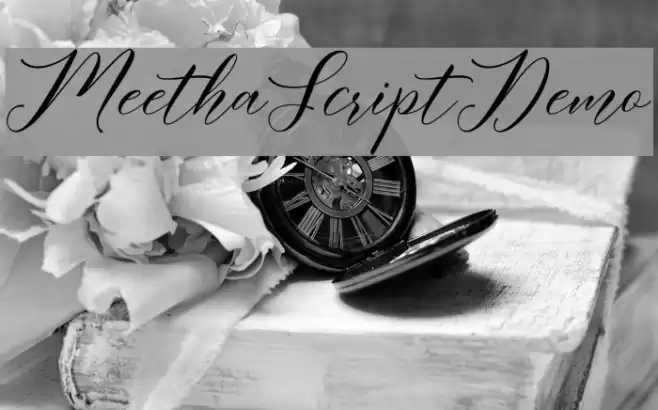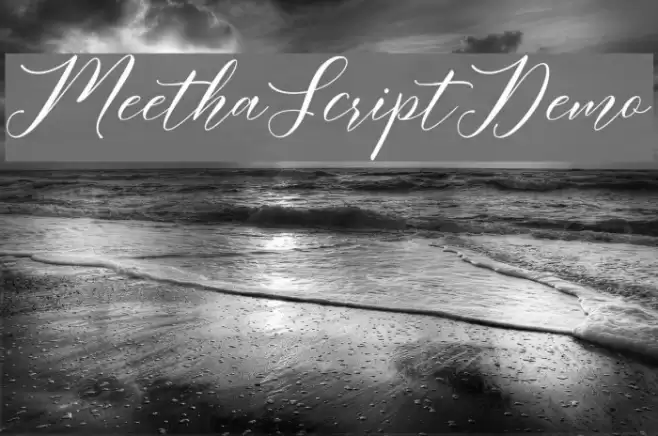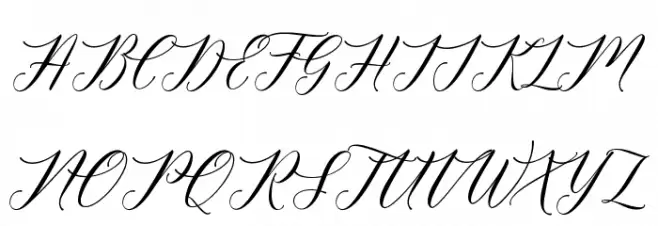
MeethaScriptDemo Font
MeethaScriptDemo Description
This elegant script font features flowing, interconnected letters that exude a sense of sophistication and grace. The uppercase letters are characterized by their tall, slender forms with sweeping curves and flourishes, while the lowercase letters maintain a consistent flow with smooth, rounded shapes. The font's overall appearance is reminiscent of traditional calligraphy, making it ideal for projects that require a touch of elegance and refinement. The consistent stroke width and balanced proportions contribute to its readability, despite the decorative nature of the script. This font is perfect for creating eye-catching headlines, invitations, and branding materials that require a personal and artistic touch.
An elegant script font with flowing, interconnected letters and calligraphic style from Uncategorized fonts.
- Proposed Projects: Ideal for wedding invitations, elegant branding, greeting cards, and luxury product packaging.
- Overall Style: Elegant, Calligraphic
- Use Case: Headlines, Invitations, Branding